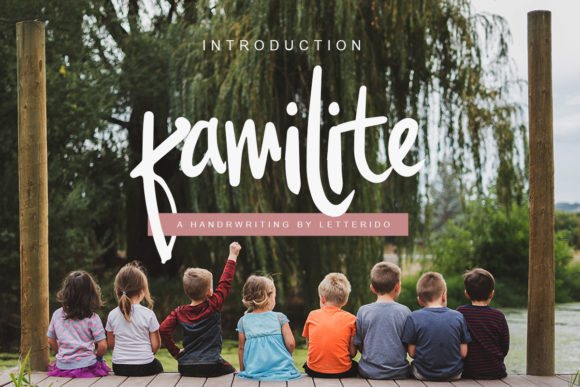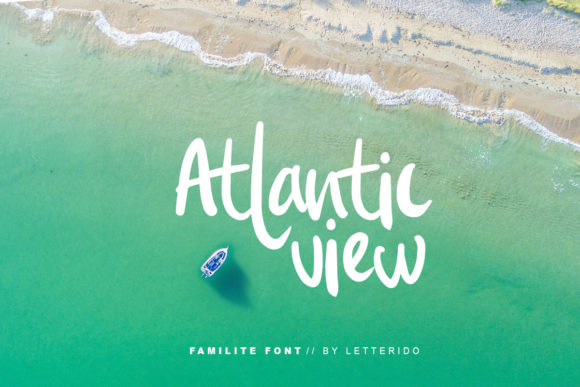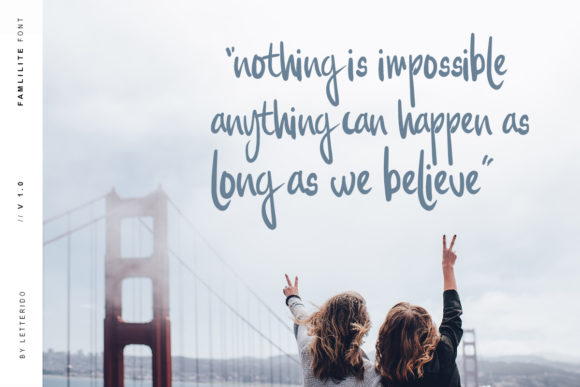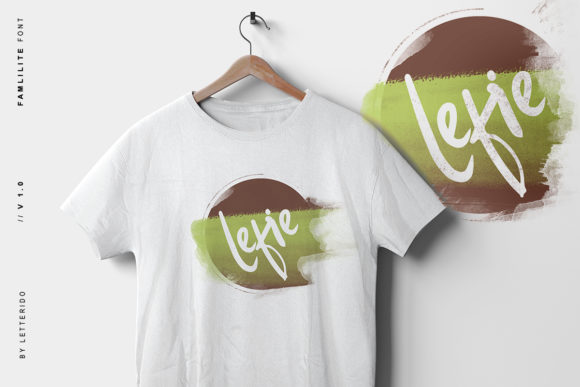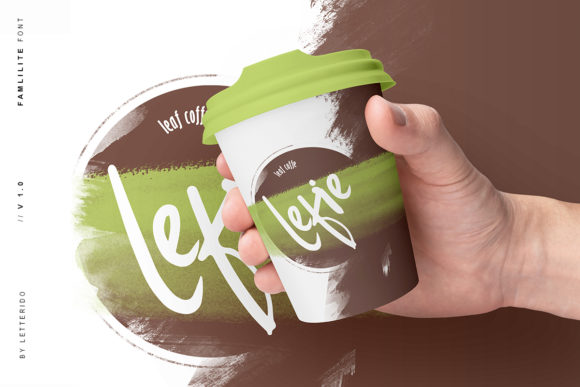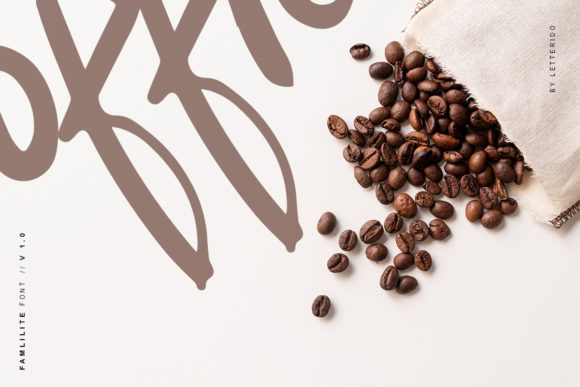
Introducing Familite Font: Elevate Your Designs with a Modern Twist
Familite Font is a breathtaking script that brings a fresh and modern perspective to the world of typography. With its elegant and refined features, this stunning script is poised to transform any design idea into a true standout. Whether you’re a designer, crafter, or simply a creative enthusiast, Familite Font is an exceptional addition to your toolkit.
The Modern Look that Sets Familite Apart
Familite Font boasts a distinctly modern aesthetic, characterized by its fluid lines, harmonious curves, and impeccable balance. This script font exudes a sense of sophistication and refinement, making it an ideal choice for projects that demand a touch of elegance. From branding and advertising to packaging and digital media, Familite Font’s versatility knows no bounds.
Key Features of Familite Font
- Unique Letterforms: Familite Font features distinctive letterforms that are both visually striking and highly legible. Each character has been carefully crafted to ensure a seamless reading experience.
- Modern Calligraphic Style: Inspired by contemporary calligraphy, Familite Font showcases a beautiful blend of traditional and modern techniques.
- Highly Versatile: Suitable for a wide range of applications, including headings, titles, logos, and body text.
- Easily Customizable: With its extensive range of weights and styles, Familite Font can be tailored to suit your specific design needs.
Applications for Designers and Crafters
Familite Font’s impressive range of applications makes it an indispensable asset for designers and crafters alike. Here are just a few examples:
- Branding and Identity: Create eye-catching logos, business cards, and letterheads that showcase your brand’s personality.
- Digital Media: Enhance your website, social media, and email marketing campaigns with Familite Font’s modern charm.
- Packaging and Product Design: Add a touch of sophistication to your product labels, packaging, and point-of-sale displays.
- Crafting and Scrapbooking: Use Familite Font to add a personal touch to your scrapbooking, journaling, and other craft projects.
Tips for Getting the Most out of Familite Font
To maximize the impact of Familite Font, consider the following tips:
- Experiment with Pairings: Combine Familite Font with complementary fonts to create visually striking contrast.
- Play with Weights and Styles: Take advantage of Familite Font’s range of weights and styles to add depth and hierarchy to your designs.
- Pay Attention to Kerning and Tracking: Adjust the kerning and tracking to ensure optimal legibility and aesthetics.
Familite Font is a game-changing script that offers a fresh perspective on modern typography. Its stunning good looks, versatility, and customization options make it an essential tool for designers and crafters seeking to elevate their creative projects. With Familite Font, you can transform your design ideas into standout masterpieces that leave a lasting impression.